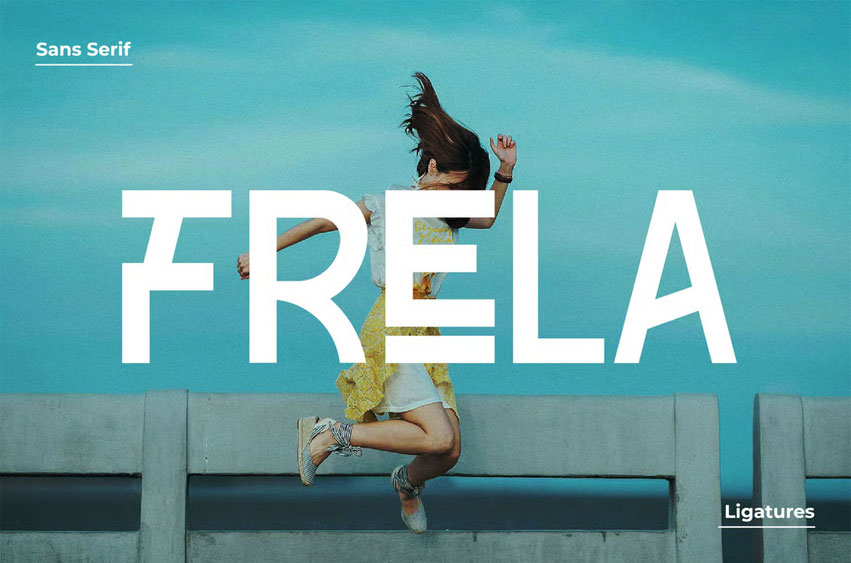
Frela Font Creative Sans. This font is perfect for posters, social media posts, branding, personal projects, etc.
- Punctuation
- Multilingual Support
- Alternates
- Ligatures